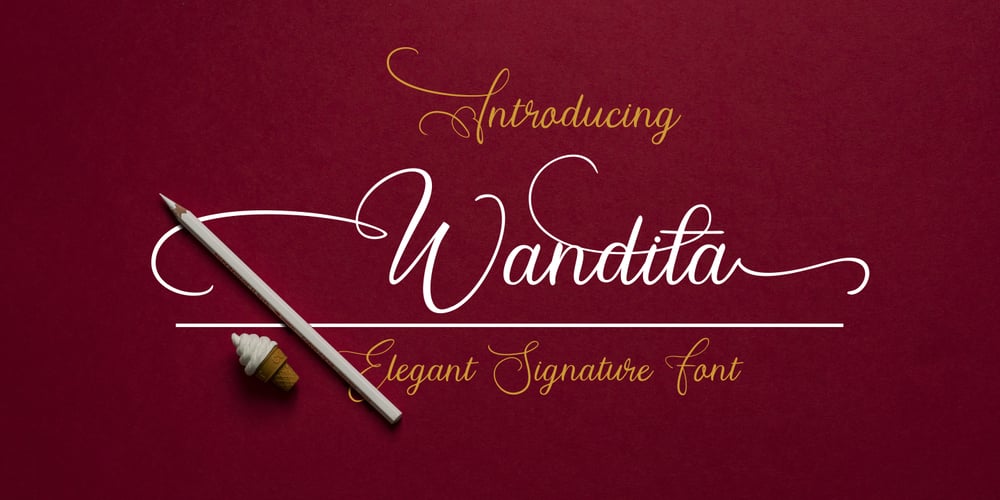
Wandita
Wandita font
Wandita Font Family was designed by Joko Setiono and published by Arttype7. Wandita contains 1 styles and family package options. We have a new product which we named Wandita. Wandita is a script font in an elegant signature style.Wandita was inspired by ancient signature writings with a touch of modern curves. It is very suitable for logos, weddings, magazines, name cards, invitations and more.If you are looking for a multi-lingual font with lots of Stylistic Alternates, Wandita is perfect for you.